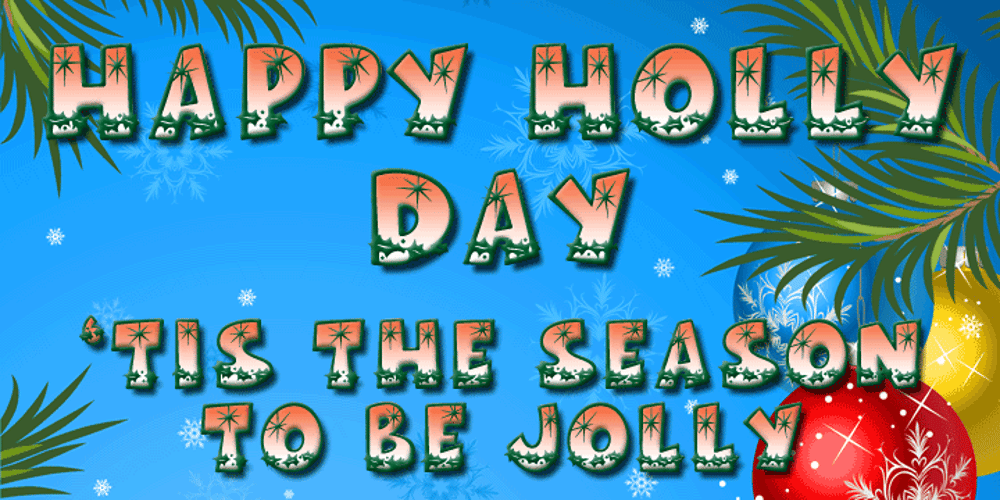
Happy Holly Day
Happy Holly Day font
Happy Holly Day Font Family was designed by Michael Hagemann and published by FontMesa. Happy Holly Day contains 4 styles and family package options. Happy Holly Day is a playful and fun Christmas style font revival, many new characters have been added to make this font complete plus a new Fill font is included. In order to take advantage of Fill fonts you will need an application that allows you to work in layers. When you see the word Fill in a fonts name this describes its purpose which means the font is intended to be used for filling in the open space of its parent font or the Open faced shadowed version from that font family or group. Layering a fill font behind an open faced font will prevent the background from showing through the center of the open faced font. Adding gradient color or texture to the fill font will further enhance your lettering and create a headline that visually stands out from the rest of the page. Some Fill fonts look as if they may be used as stand alone fonts but others simply do not look good used as a plain font. The Happy Holly Day Fill font was not designed to work as a regular or stand alone font.